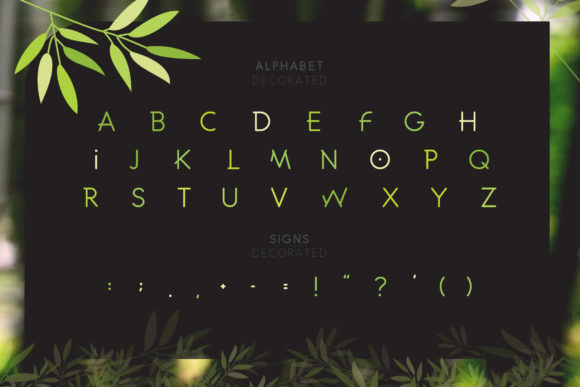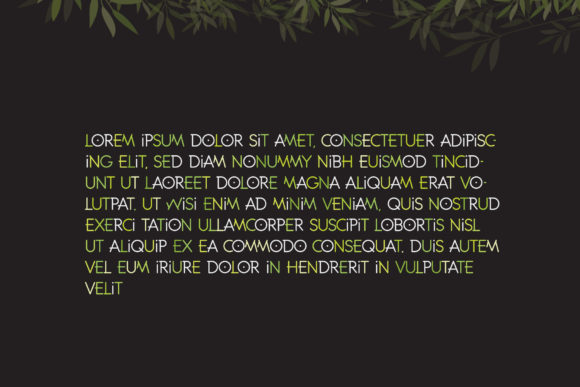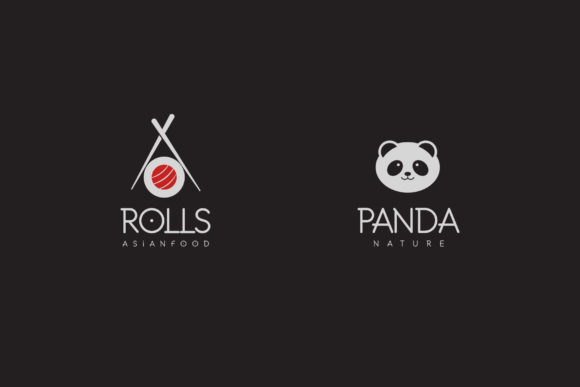
Bamboo Font: A Powerful Display Font Inspired by Asian Culture
Bamboo Font is a stunning display font that draws inspiration from the rich and vibrant Asian culture. This font is a perfect blend of cleanliness, lightness, depth, and mystery, making it an ideal choice for designers and crafters looking to add an exotic touch to their projects.
Design and Features
Bamboo Font boasts a unique and captivating design that is sure to grab attention. Its clean and light appearance makes it perfect for use in titles, headings, and other display purposes. The font’s design is deeply rooted in Asian culture, with intricate details and subtle nuances that evoke a sense of mystery and elegance.
One of the standout features of Bamboo Font is its versatility. It can be used in a wide range of projects, from branding and advertising to packaging and digital media. Whether you’re looking to create a bold and eye-catching title or a subtle and sophisticated label, Bamboo Font is the perfect choice.
Asian Inspiration
Bamboo Font’s inspiration from Asian culture is evident in its design. The font’s creators drew inspiration from traditional Asian typography, incorporating elements such as bold lines, subtle curves, and intricate details. The result is a font that is both modern and timeless, with a unique and captivating aesthetic.
The use of bamboo as a design element is also significant, as it is a highly revered plant in Asian culture. Bamboo is known for its strength, flexibility, and sustainability, making it a powerful symbol of Asian values. By incorporating bamboo into the font’s design, the creators aimed to evoke a sense of cultural heritage and tradition.
Cleanliness and Lightness
One of the defining characteristics of Bamboo Font is its cleanliness and lightness. The font’s design is highly legible, making it perfect for use in titles and headings. The clean lines and subtle curves create a sense of airiness and openness, making the font highly versatile and adaptable.
The lightness of Bamboo Font also makes it highly effective for use in digital media. The font is optimized for use on screens, ensuring that it remains clear and legible even at small sizes. This makes it an ideal choice for designers and crafters working on digital projects, such as websites, social media graphics, and digital advertising.
Depth and Mystery
Despite its clean and light appearance, Bamboo Font also has a sense of depth and mystery. The font’s design incorporates subtle nuances and intricate details that add a layer of complexity and sophistication. This makes it perfect for use in projects where a sense of elegance and refinement is desired.
The sense of mystery in Bamboo Font is also created through its unique and captivating aesthetic. The font’s design is unlike anything else, making it highly distinctive and memorable. This makes it an ideal choice for designers and crafters looking to create a lasting impression.
Uses and Applications
Bamboo Font is a highly versatile font that can be used in a wide range of projects. Some of the most popular uses for the font include:
- Branding and advertising: Bamboo Font is perfect for creating bold and eye-catching titles and headings.
- Packaging: The font’s clean and light appearance makes it ideal for use on product labels and packaging.
- Digital media: Bamboo Font is optimized for use on screens, making it perfect for digital projects such as websites, social media graphics, and digital advertising.
- Stationery: The font’s elegant and refined aesthetic makes it perfect for use in stationery and correspondence.
Bamboo Font is a powerful display font that is inspired by the rich and vibrant Asian culture. Its unique and captivating design combines cleanliness and lightness with depth and mystery, making it an ideal choice for designers and crafters looking to add an exotic touch to their projects. With its versatility, legibility, and distinctive aesthetic, Bamboo Font is sure to become a go-to choice for anyone looking to create stunning and memorable designs.